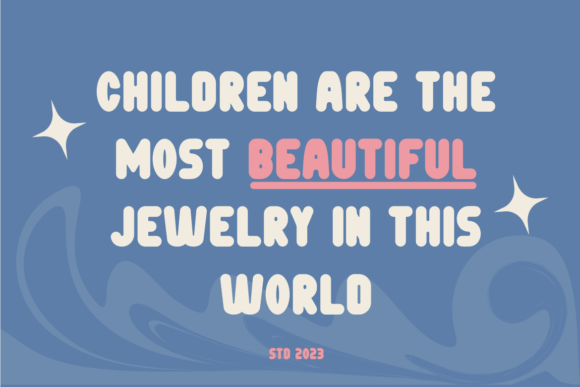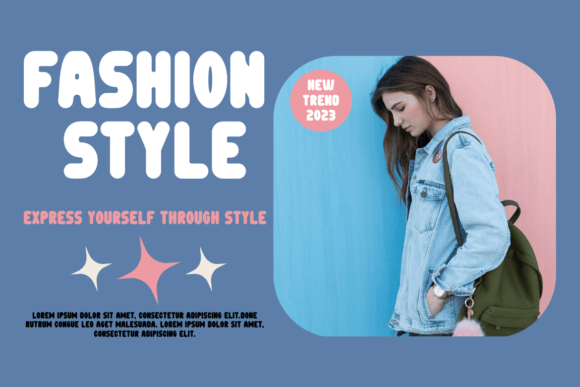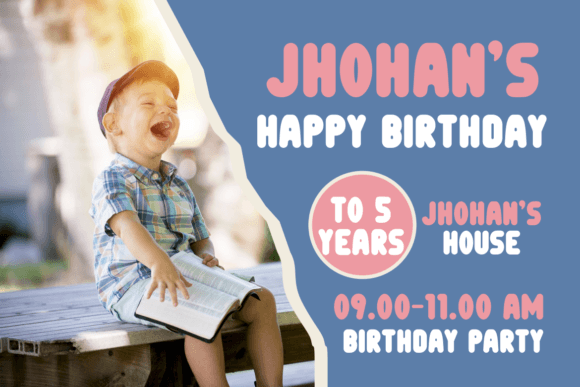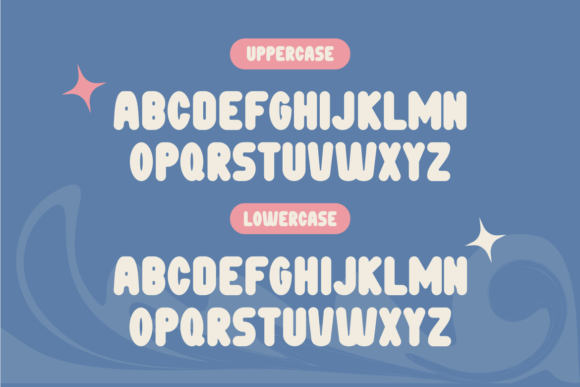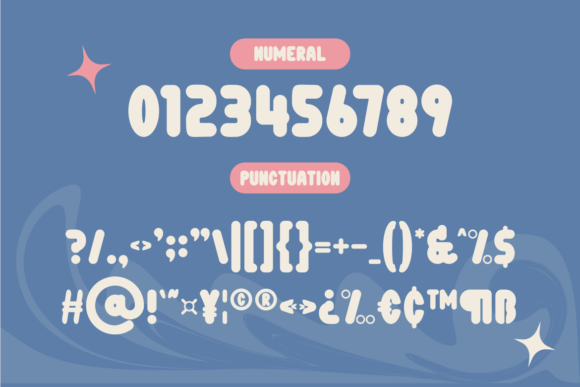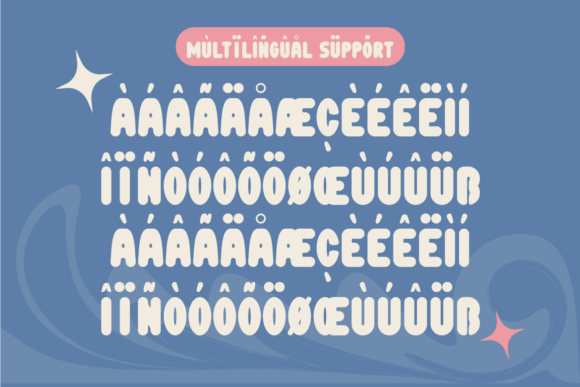
The Charm of Blumooni Font: A Designer’s Delight
I still remember the time I was working on a project for a children’s book, and I was on a mission to find the perfect font. The client wanted something that would appeal to kids, something playful and fun. I scoured the internet, tried out dozens of fonts, but nothing seemed quite right. That was until I stumbled upon the Blumooni Font. Its round and wide letter shapes with curved corners immediately caught my eye, and I knew I had found the one. In this article, I’ll share my love for this font, its features, and how to make the most of it in your designs.
- ✨ The soft and friendly impression it conveys, perfect for designs aimed at children or those with a playful nature.
- ✅ The font’s youthful and cheerful feel, which can add a touch of whimsy to any design.
- 🌈 The range of OpenType features, including glyphs and stylistic alternates, which offer plenty of creative possibilities.
While Blumooni Font is a wonderful choice, it’s not without its quirks. For example:
- 🤔 The font may not be the best choice for very formal or professional designs, as it can come across as too playful.
- ⚠️ Some characters may not be suitable for use at very small sizes, as they can become blurry or difficult to read.
The Story Behind Blumooni Font
The Blumooni Font was designed with one goal in mind: to create a font that’s both fun and functional. The designer, inspired by the world of children’s books and playful typography, set out to create a font that’s both youthful and cheerful. With its round and wide letter shapes, curved corners, and range of OpenType features, Blumooni Font is the perfect choice for designs that need a touch of whimsy.
Q: What is the personality of Blumooni Font?
A: Blumooni Font has a soft and friendly impression, making it perfect for designs aimed at children or those with a playful nature.
Q: Is Blumooni Font suitable for body text?
A: While Blumooni Font is beautiful, it may not be the best choice for body text. It’s better suited for headings, titles, or short paragraphs.